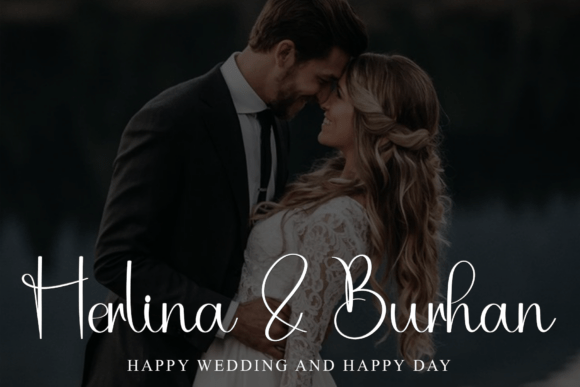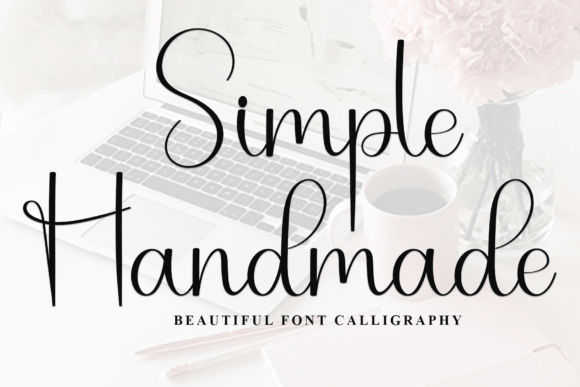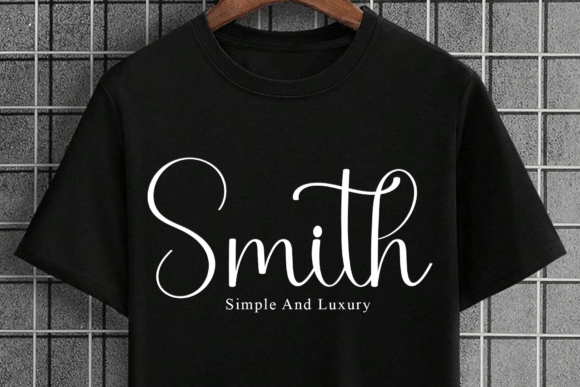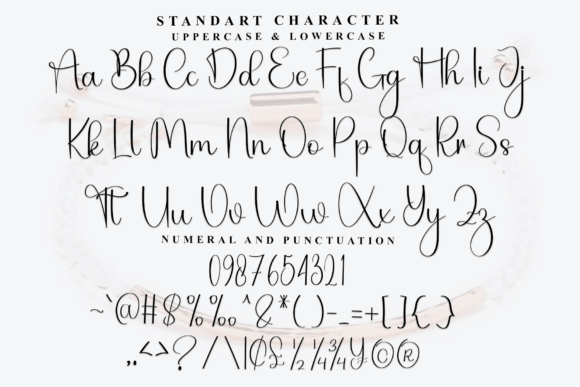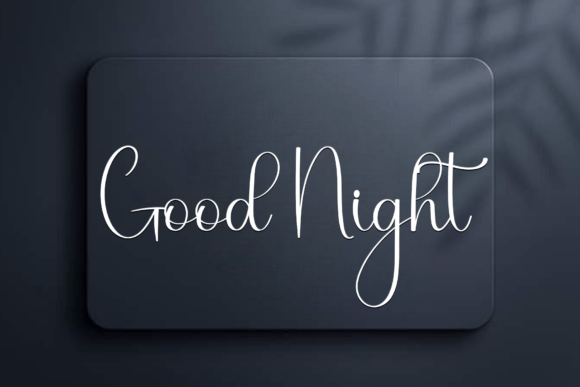
Introducing Birthplace Font: Elevate Your Designs with Elegance and Charm
In the world of typography, a font can make or break the aesthetic of a design. For those seeking a touch of sophistication and elegance, the Birthplace Font is an exceptional choice. This stylish handwritten script font is designed to add a personal and refined touch to any project, making it perfect for branding, invitations, stationery, and more.
The Birthplace Font: A Masterpiece of Elegance
Birthplace Font is a beautiful, handwritten script font that boasts fluid, graceful strokes. Its smooth curves and natural flow create a timeless, refined look that instantly elevates any design. The font’s elegant appearance is characterized by its:
• Fluid strokes: The font’s strokes are carefully crafted to flow smoothly into one another, creating a sense of continuity and harmony.
• Natural flow: The font’s natural flow gives it an organic, human touch that sets it apart from more rigid typography options.
• Smooth curves: The font’s curves are meticulously designed to create a soft, rounded appearance that adds warmth and approachability to any design.
Birthplace Font is an excellent choice for designers and crafters looking to add a touch of sophistication to their projects. Whether you’re working on:
• Branding: Use Birthplace Font to create a luxurious and memorable brand identity that sets you apart from the competition.
• Invitations: Add a touch of elegance to your invitations, making them perfect for weddings, baby showers, and other special occasions.
• Stationery: Elevate your stationery designs with Birthplace Font, creating a refined and professional look that’s perfect for business or personal use.
Why Choose Birthplace Font?
With so many fonts available, why choose Birthplace Font? Here are just a few reasons why designers and crafters love this stylish handwritten script font:
• Unique and distinctive: Birthplace Font offers a unique and distinctive look that sets it apart from more traditional typography options.
• Versatile: The font is incredibly versatile, making it suitable for a wide range of design applications.
• Elegant and sophisticated: Birthplace Font exudes elegance and sophistication, making it perfect for designs that require a touch of refinement.
Tips for Using Birthplace Font
To get the most out of Birthplace Font, here are a few tips to keep in mind:
• Pair with contrasting fonts: Pair Birthplace Font with contrasting fonts to create visual interest and add depth to your design.
• Use for headlines and titles: The font’s elegant appearance makes it perfect for headlines and titles, adding a touch of sophistication to your design.
• Experiment with colors and textures: Don’t be afraid to experiment with different colors and textures to add an extra layer of depth and interest to your design.
In conclusion, Birthplace Font is an exceptional choice for designers and crafters seeking to add a touch of elegance and sophistication to their projects. With its fluid, graceful strokes and smooth curves, this stylish handwritten script font is perfect for branding, invitations, stationery, and more. Whether you’re looking to create a luxurious brand identity or add a touch of refinement to your designs, Birthplace Font is an excellent choice.